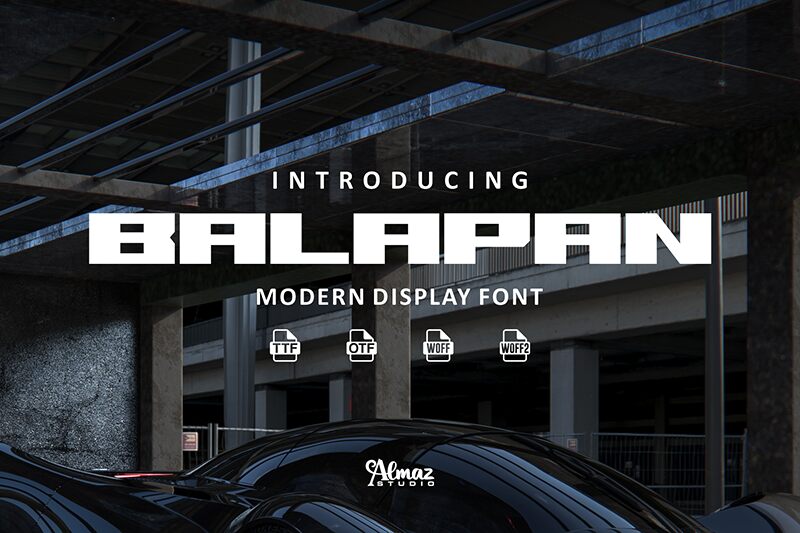
Balapan is an exclusive font created by Almaz Studio, a premium type foundry that believes in striking balances between function and beauty. Available as an individual font with a bold style and sans serif typeface, the Balapan typeface is perfect for modern branding, advertisements, posters, flyers, business cards, logotypes, and any other projects that seek to create eye-catching display headlines and logos. It combines solid and bold, thick block characters for the majority of its uppercase letters, and it also features a modern stylistic set that alternates between uppercase characters with solid and rough edges.
This sans serif font also presents a unique selection of punctuation and ligatures which, combined with Balapan’s geometric aesthetics and stylistic display, allows designers to create typographic structures that are both functional and artistic. It can be used in tandem with other fonts for varied branding design that combines text and display and can be instantly incorporated into all sorts of projects, from minimal posters to vintage themed branding and apparel.